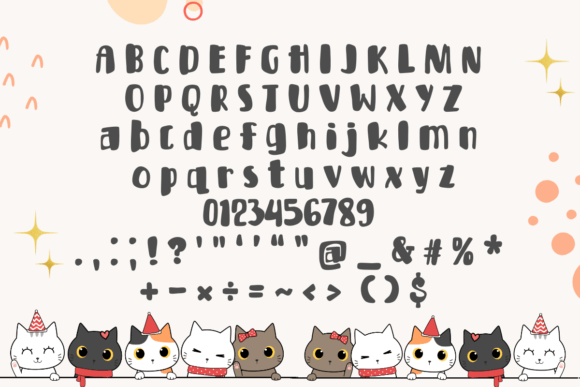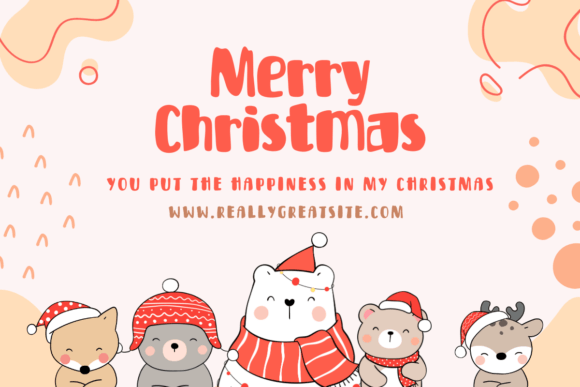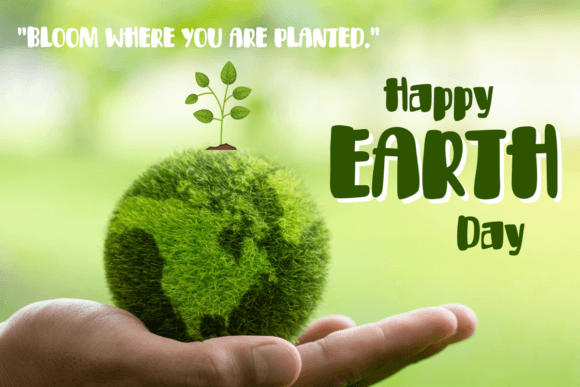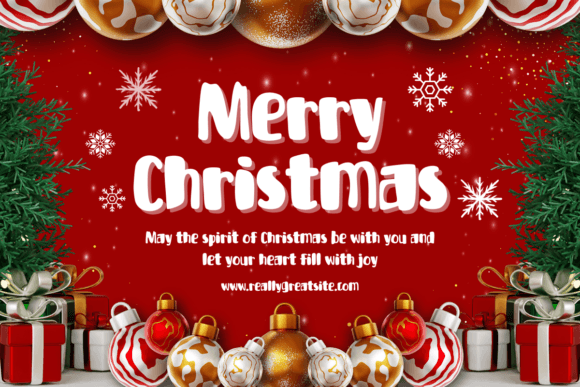
Introducing Advantage Font: The Sweet and Friendly Handwritten Font for Creative Projects
Are you a designer, crafter, or DIY enthusiast looking for a font that can add a personal touch to your creative projects? Look no further than Advantage Font, a sweet and friendly handwritten font that’s perfect for a wide range of applications. In this article, we’ll explore the features and benefits of Advantage Font, and show you how it can elevate your designs and crafts to the next level.
What is Advantage Font?
Advantage Font is a beautiful, handwritten font that’s designed to bring a sense of warmth and personality to your projects. With its smooth, flowing lines and playful curves, this font is perfect for creating invitations, social media graphics, kids’ clothes, posters, flyers, and more.
Key Features of Advantage Font
- Handwritten style: Advantage Font has a genuine, handwritten look that’s perfect for creating personal and engaging designs.
- Sweet and friendly: This font has a warm and approachable feel that’s sure to delight your audience.
- Highly versatile: Advantage Font can be used for a wide range of projects, from formal invitations to playful kids’ designs.
- Easy to read: Despite its playful nature, Advantage Font is highly legible, making it perfect for designs that require a clear message.
Uses for Advantage Font
So, what can you use Advantage Font for? The possibilities are endless! Here are a few ideas to get you started:
- Invitations: Create beautiful, personalized invitations for weddings, birthday parties, baby showers, and more.
- Social media graphics: Use Advantage Font to create engaging social media graphics that showcase your brand’s personality.
- Kids’ clothes and accessories: Add a playful touch to kids’ clothes, hats, bags, and other accessories with Advantage Font.
- Posters and flyers: Create eye-catching posters and flyers for events, promotions, and products.
- DIY crafts: Use Advantage Font to add a personal touch to your DIY crafts, such as scrapbooking, card making, and home decor projects.
Benefits of Using Advantage Font
So, why choose Advantage Font for your creative projects? Here are just a few benefits:
- Unique and personalized: Advantage Font adds a personal touch to your designs, setting them apart from more generic fonts.
- Easy to use: This font is highly legible and easy to work with, making it perfect for designers and crafters of all skill levels.
- Time-saving: With Advantage Font, you can create professional-looking designs in no time, saving you time and effort.
Tips for Using Advantage Font
To get the most out of Advantage Font, here are a few tips:
- Experiment with colors: Advantage Font looks great in a variety of colors, so don’t be afraid to experiment and find the perfect hue for your design.
- Mix and match: Combine Advantage Font with other fonts and graphics to create a unique and eye-catching design.
- Keep it simple: Don’t overcomplicate your design – Advantage Font is perfect for simple, elegant designs that get the message across.